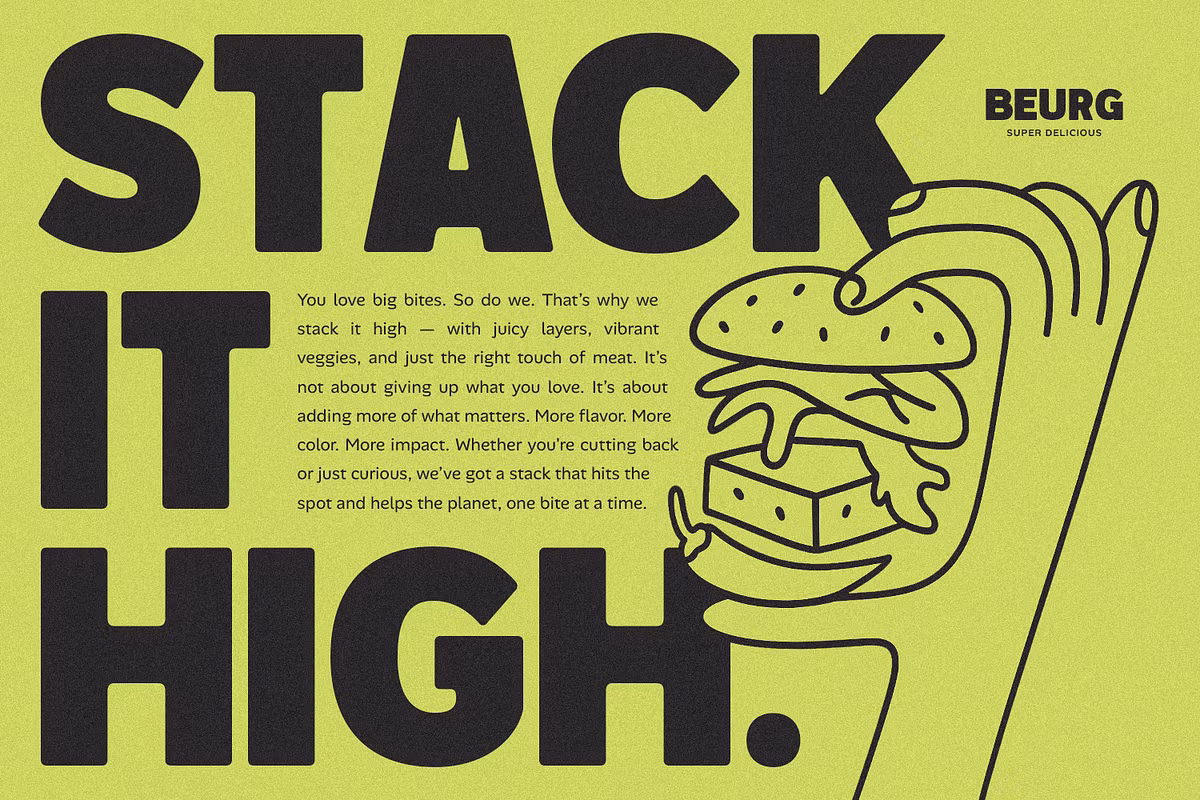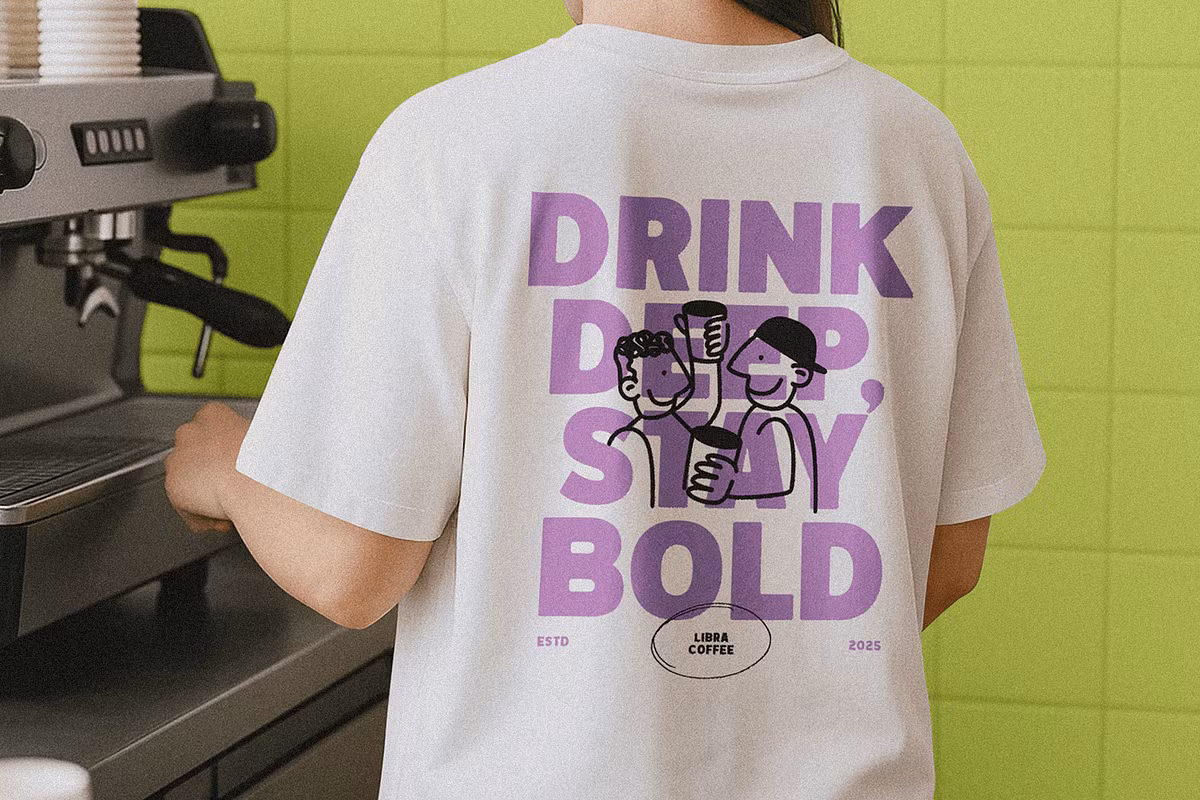
Grogia: Retro-Inspired Bold Display Font for Eye-Catching Design
Introducing Grogia – A Bold Display Font
Grogia is a really cool font that takes its style from the 80s. It’s bold and eye-catching, with thick lines and smooth curves that make it look really nice. This font has a lot of character and reminds you of old prints from back in the day. It’s perfect for designs that need a bit of personality and a retro vibe. Grogia is great for making a statement and adding some excitement to your projects. Its unique look and feel make it stand out, and it’s sure to grab people’s attention. Whether you’re working on a poster, a logo, or something else, Grogia is a great choice if you want to add some fun and nostalgia to your design.
Design Style of Grogia
The design style of Grogia is distinctly influenced by the playful and dynamic visual culture of the 1980s. The font features:
- Thick Letterforms: The boldness of Grogia ensures that each letter captures attention, making it perfect for headlines and titles.
- Soft Curves: The gentle curves of the letterforms add a friendly, approachable feel, enhancing the nostalgic charm.
- Rhythmic Flow: The smooth transitions between letters create a visually pleasing reading experience, contributing to its modern yet retro appeal.
Overall, Grogia’s design style is a harmonious blend of nostalgia and contemporary aesthetics, making it a versatile font for various design needs.
Character Sets and Features
Grogia is not just visually striking; it is also functionally rich, providing a comprehensive character set that caters to diverse typographic needs:
- Uppercase and Lowercase Letters: Grogia offers both uppercase and lowercase letters, allowing for flexible text composition.
- Stylistic Alternates: The font includes various stylistic alternates, enabling you to customize the look of your text for greater impact.
- Ligatures: Grogia supports ligatures, which help create seamless connections between letters, adding an elegant touch to your designs.
- Numbers and Punctuation: The font includes a full set of numbers and punctuation marks, ensuring that your designs are complete and professional.
- Multilingual Support: Grogia supports multiple languages, including Afrikaans, Spanish, and Zulu, making it suitable for global communication.
- PUA Encoded Characters: This feature allows for easy access to special characters without the need for additional design software.
These features make Grogia a powerful tool for designers looking to create impactful and visually appealing content.
Use Cases for Grogia
Grogia is incredibly versatile and can be utilized in various design contexts. Here are some notable use cases:
- High-End Branding: The boldness and retro aesthetic of Grogia make it perfect for luxury brands looking to evoke a sense of nostalgia.
- Posters and Ads: Grogia’s posters and ads really grab your attention, making them perfect for things like music concerts or promotional events, and helping your message get noticed.
- Editorial Layouts: Use Grogia in magazines and online articles to draw readers in with striking headlines and titles.
- Album Artwork: Musicians can leverage Grogia’s retro vibe for album covers, giving a nod to the past while appealing to contemporary audiences.
- Packaging Design: Grogia adds a distinct personality to product packaging, helping products stand out on shelves.
With its bold features and retro charm, Grogia is ideal for any project that requires a touch of flair and a strong visual identity.
When it comes to typography, pairing fonts effectively can enhance your design. Here are some suggestions for pairing Grogia with other typefaces:
- Sans Serif Fonts: Pair Grogia with clean sans serif fonts like Open Sans or Montserrat for a modern look that balances the boldness of Grogia.
- Classic Serif Fonts: For a traditional look, try pairing Grogia with classic serif fonts such as Playfair Display or Merriweather – this mix can add a touch of elegance and create a nice contrast between the two fonts, making your design stand out.
- Contrasting Display Fonts: Use another display font with a different weight or style to create visual interest. Pairing Grogia with a thinner or more geometric font can add depth to your design.
Experimenting with these pairings can help you create visually striking compositions that effectively communicate your message.
Grogia is a really cool font that brings back the old days, but still looks fresh and modern. It’s got thick lines, smooth curves, and lots of extra features that make it perfect for big brands, ads, and creative projects. You can use it to make logos, posters, or magazine layouts that really grab people’s attention. The best part is, Grogia is super versatile, so you can let your imagination run wild and come up with something totally unique. Whether you’re a designer or just someone who loves playing around with fonts, Grogia is definitely worth checking out. It’s a great way to add some personality to your designs and make them stand out from the crowd. So why not give it a try and see what kind of amazing things you can create with Grogia?